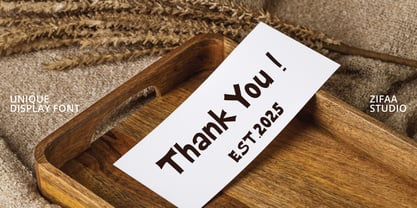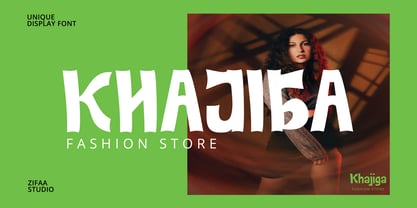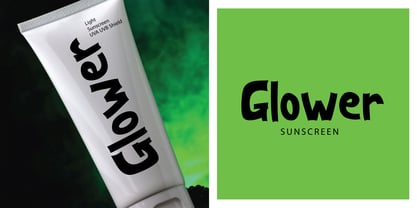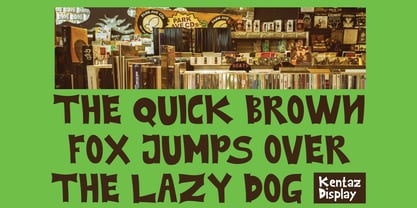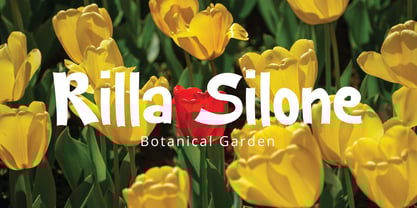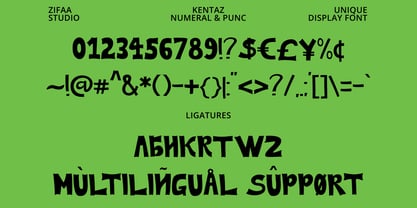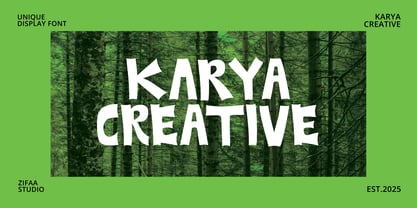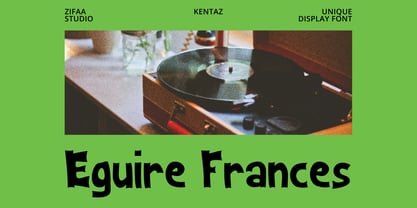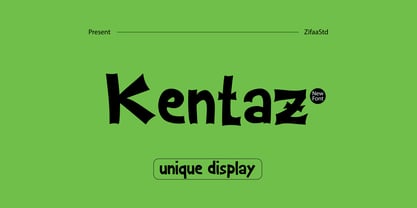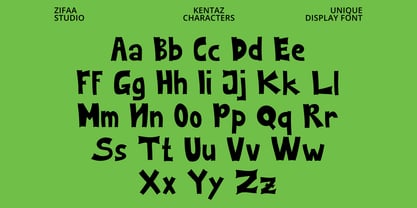
Kentaz Display
by Pointlab
The Kentaz Display Font Family was designed by Ferdiansyah and published by Pointlab. Kentaz Display contains 1 styles. More about this family
Kentaz Display this font has a unique and irregular character, giving a relaxed, dynamic, and cheerful impression.
Its main characteristics include:
Irregular Shape: The letters in this font have different sizes and shapes, giving an organic and informal impression.
Decorative Properties: Very suitable for designs that require a unique look, such as posters, invitations, or creative branding.
The Uniqueness of Each Letter: Each letter appears to be designed in a different style, creating a personal impression.
This font is perfect for creative projects that want to highlight elements of courage and freedom.